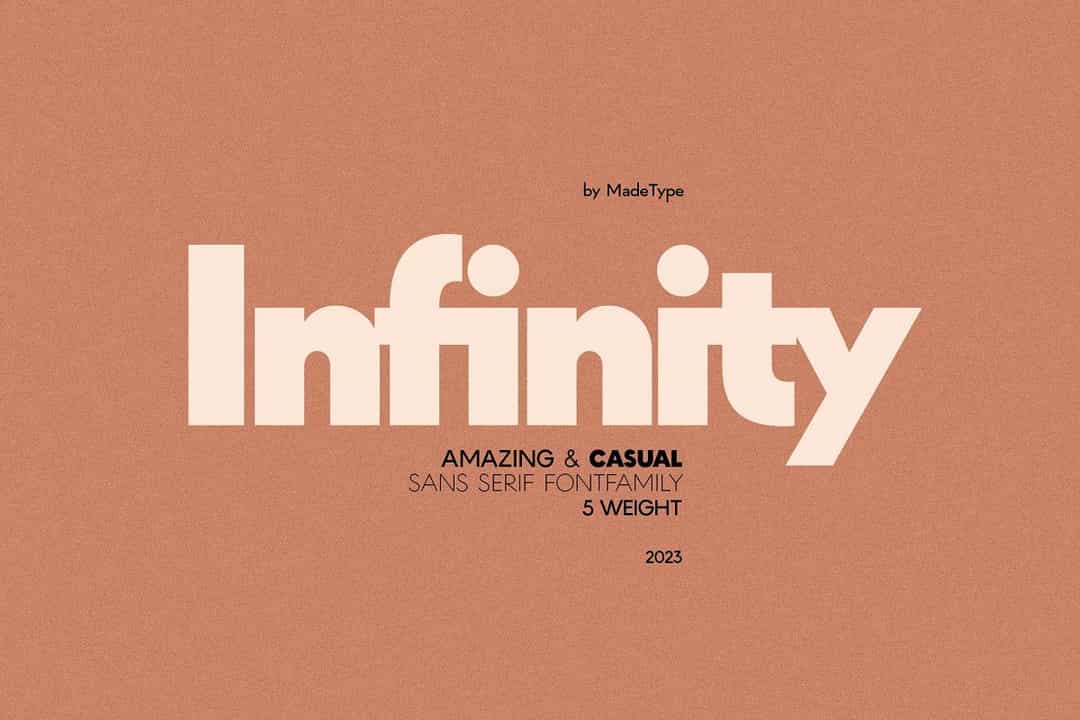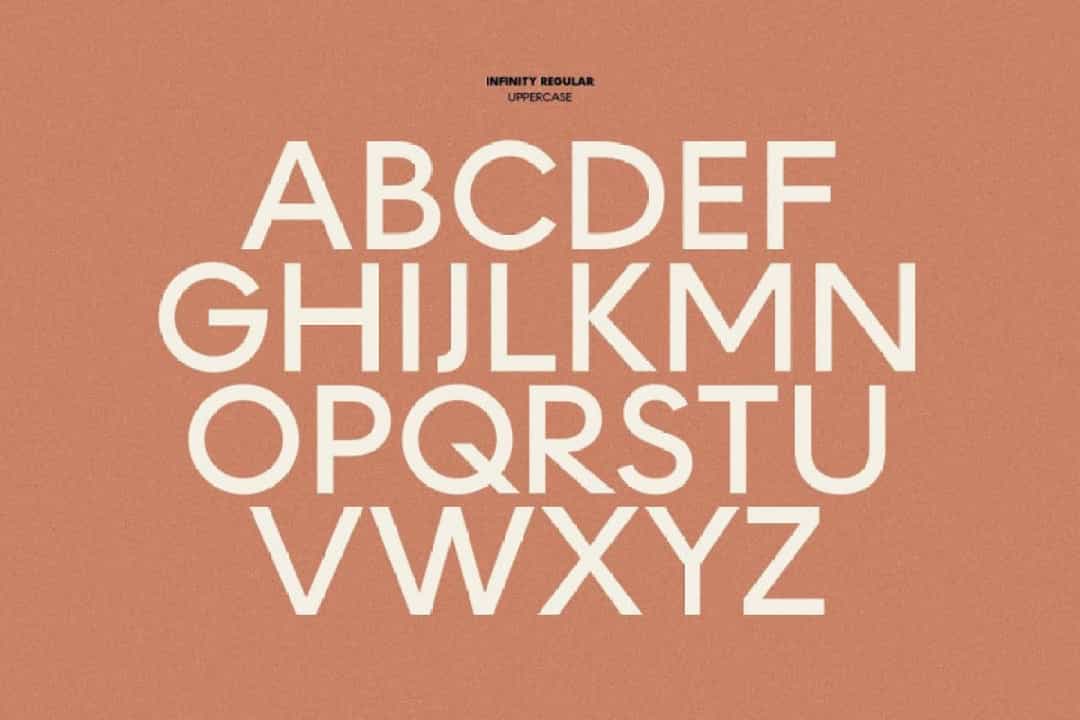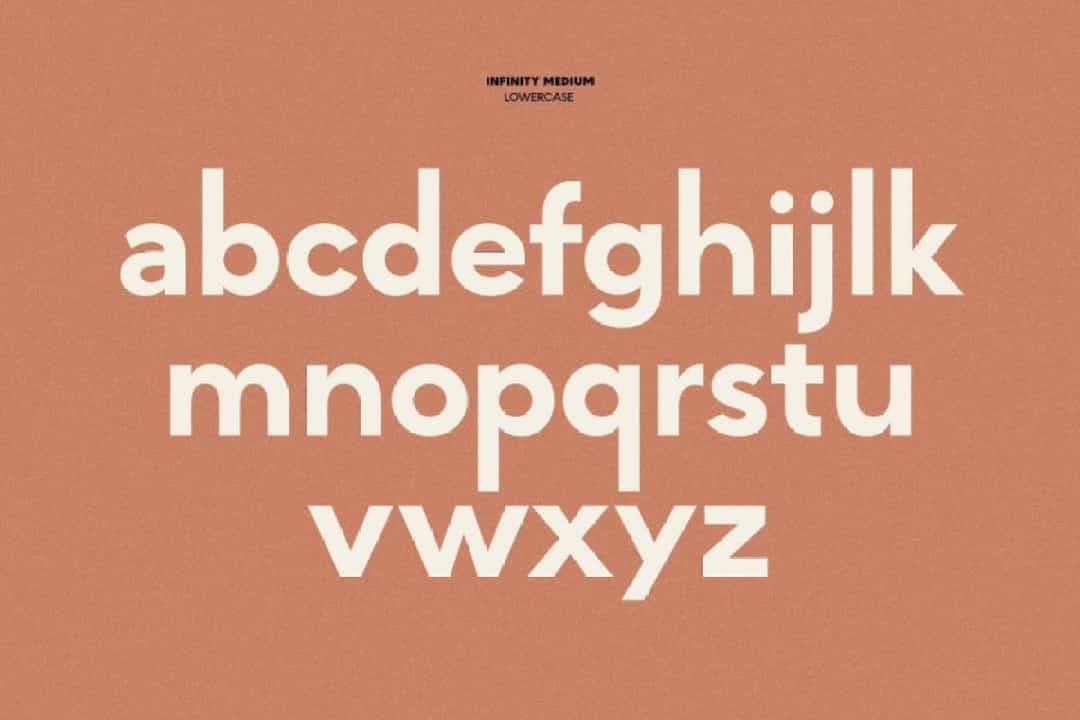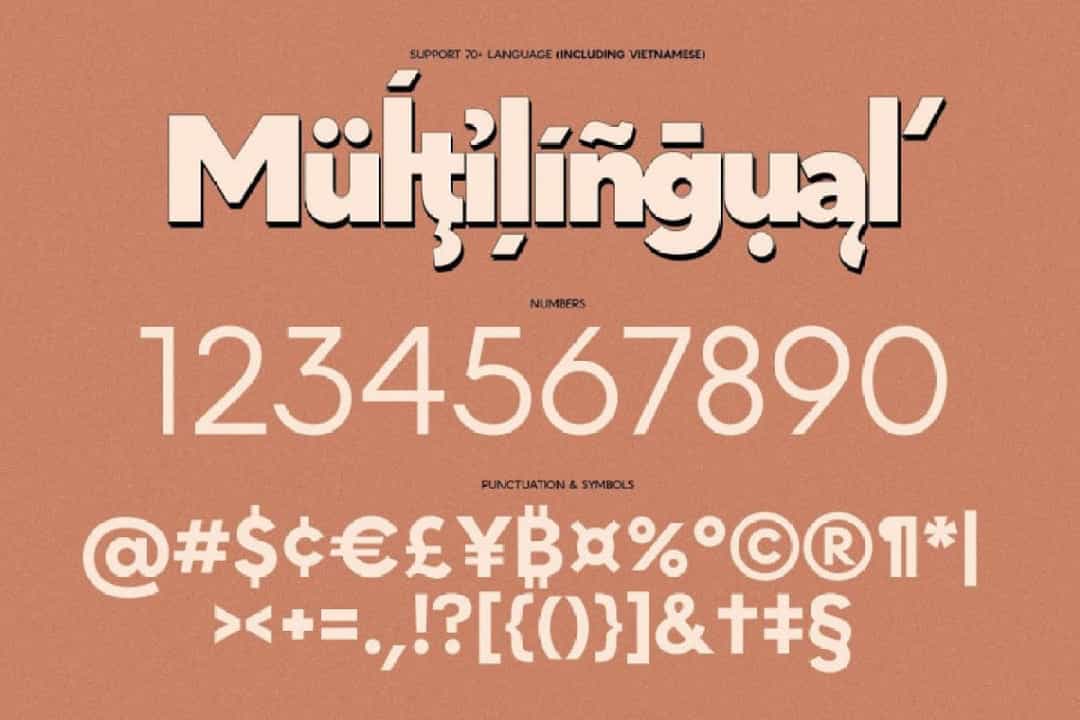
Made Infinity is an exciting traditional sans serif type family that exudes excitement with its sleek and modern style. Perfect for luxurious branding projects or fashion-forward editorial publications. Additionally, digital interfaces and websites that require modern aesthetic are sure to benefit from its use.